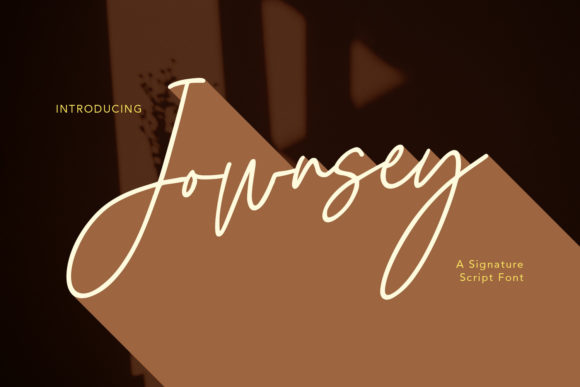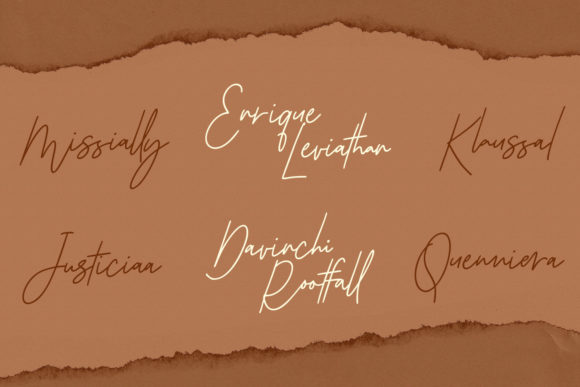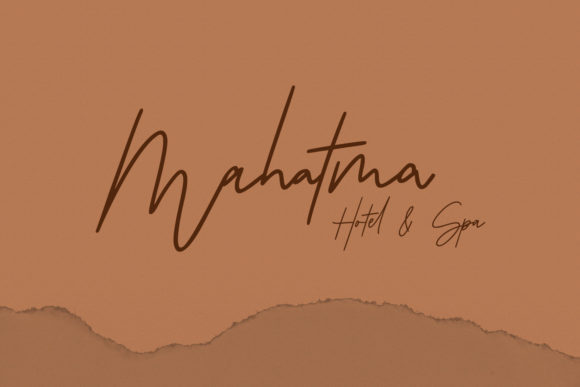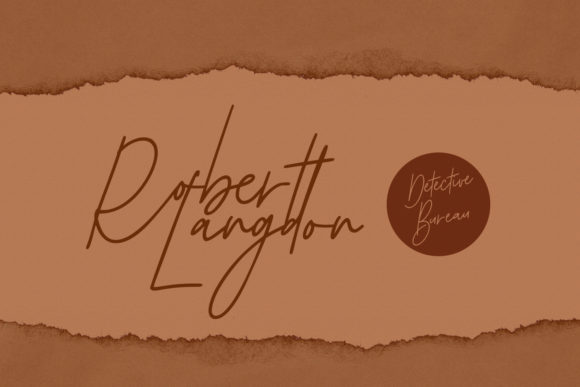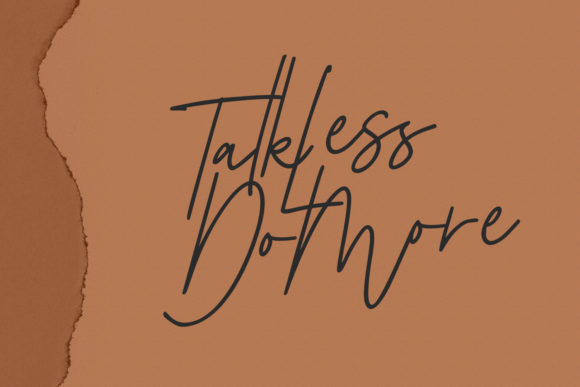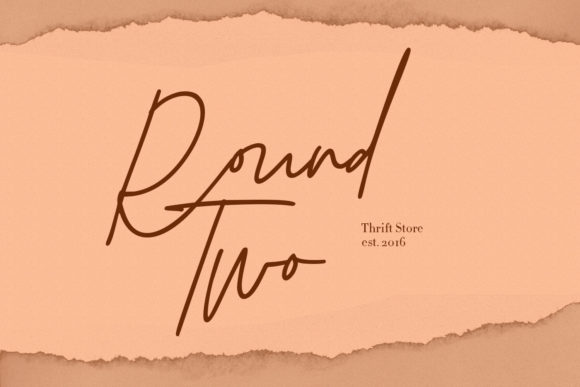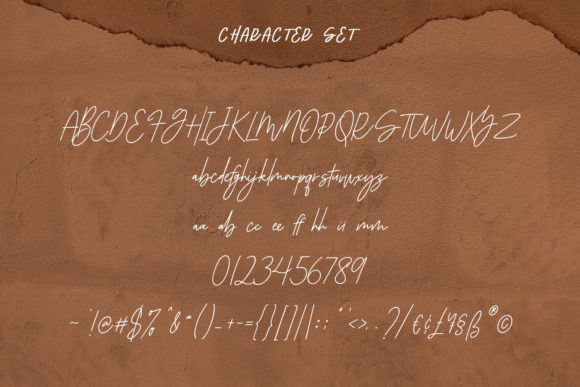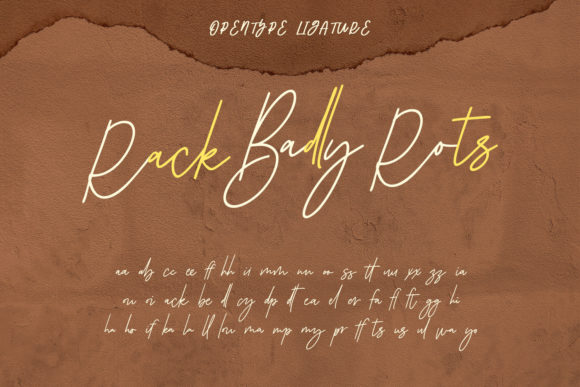
Jownsey Script Font
About Jownsey Script Font
Jownsey Script is a stylish and fashionable script font. It has a clean, thin and smooth vibe and it will be a hit for any design that you want to add it to.